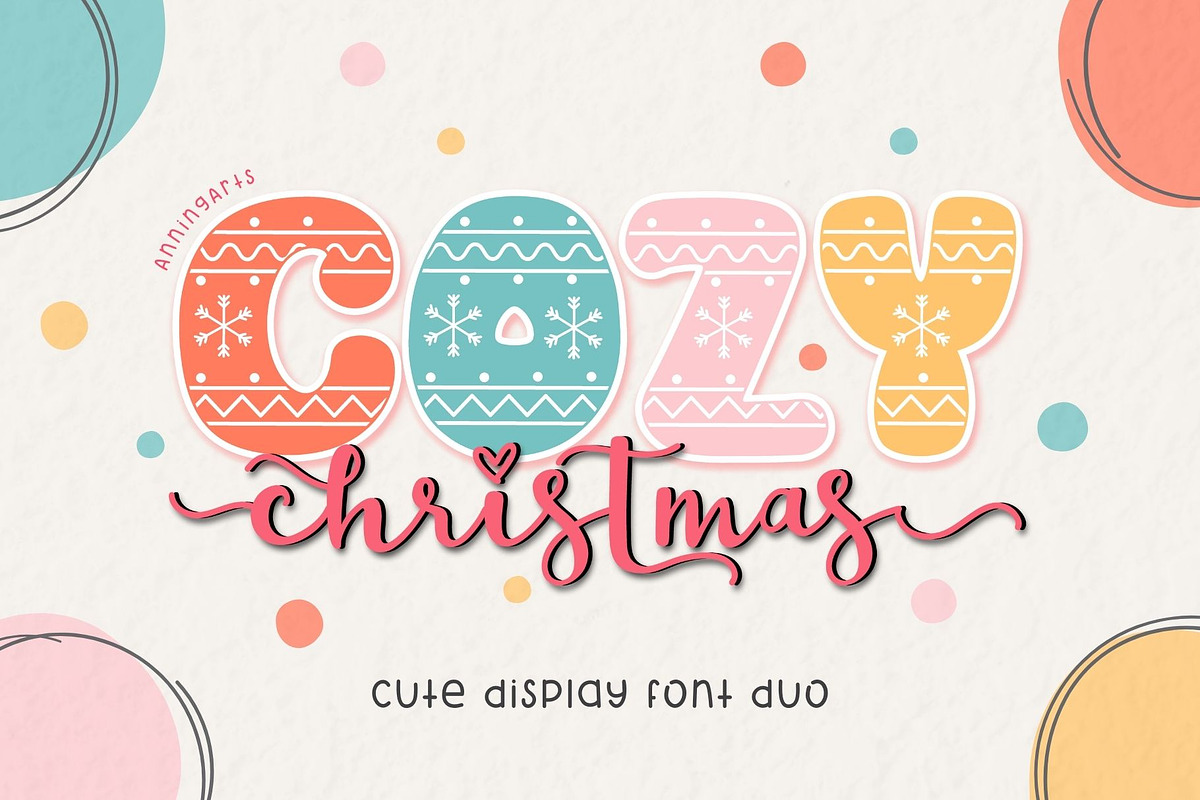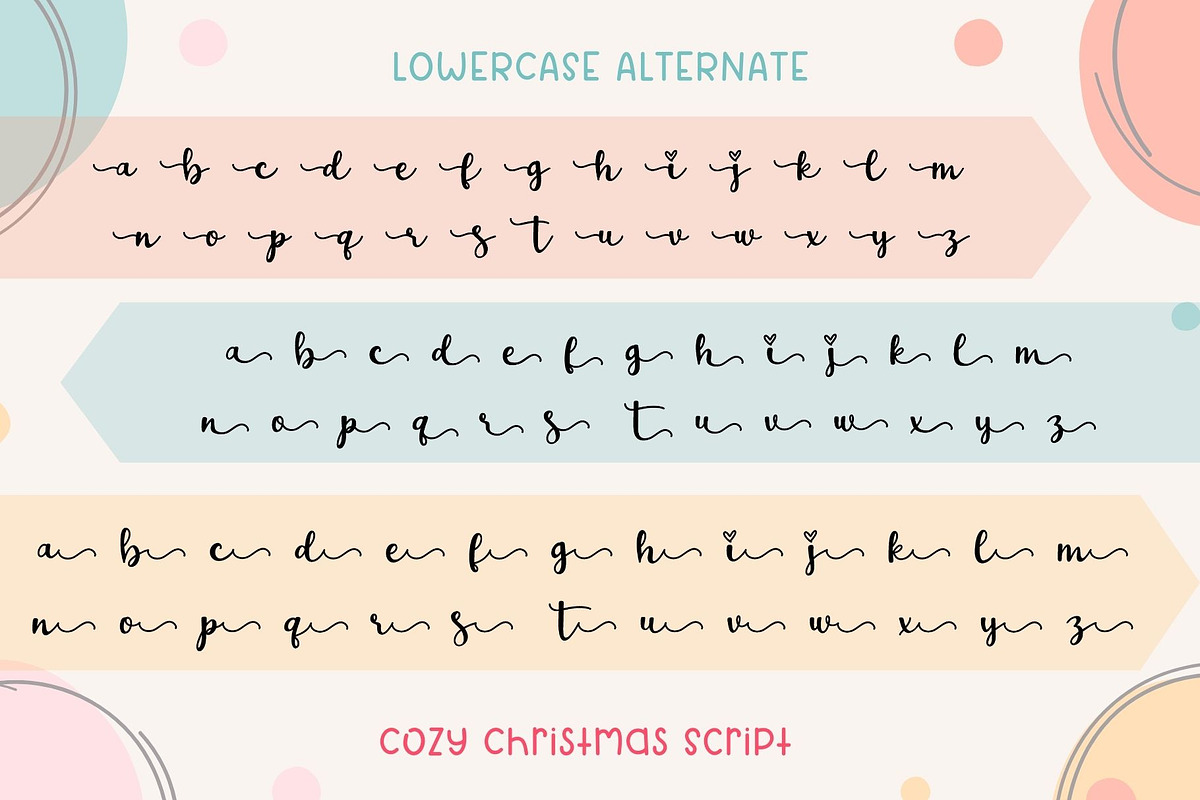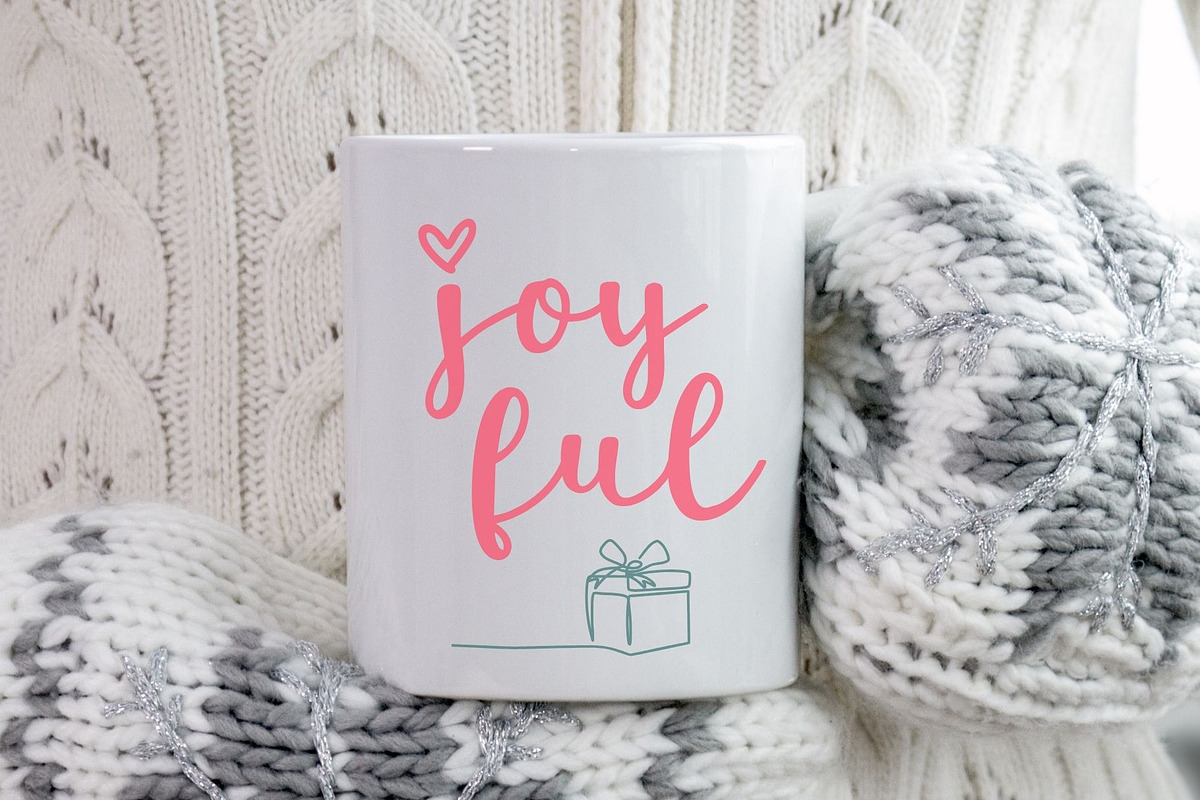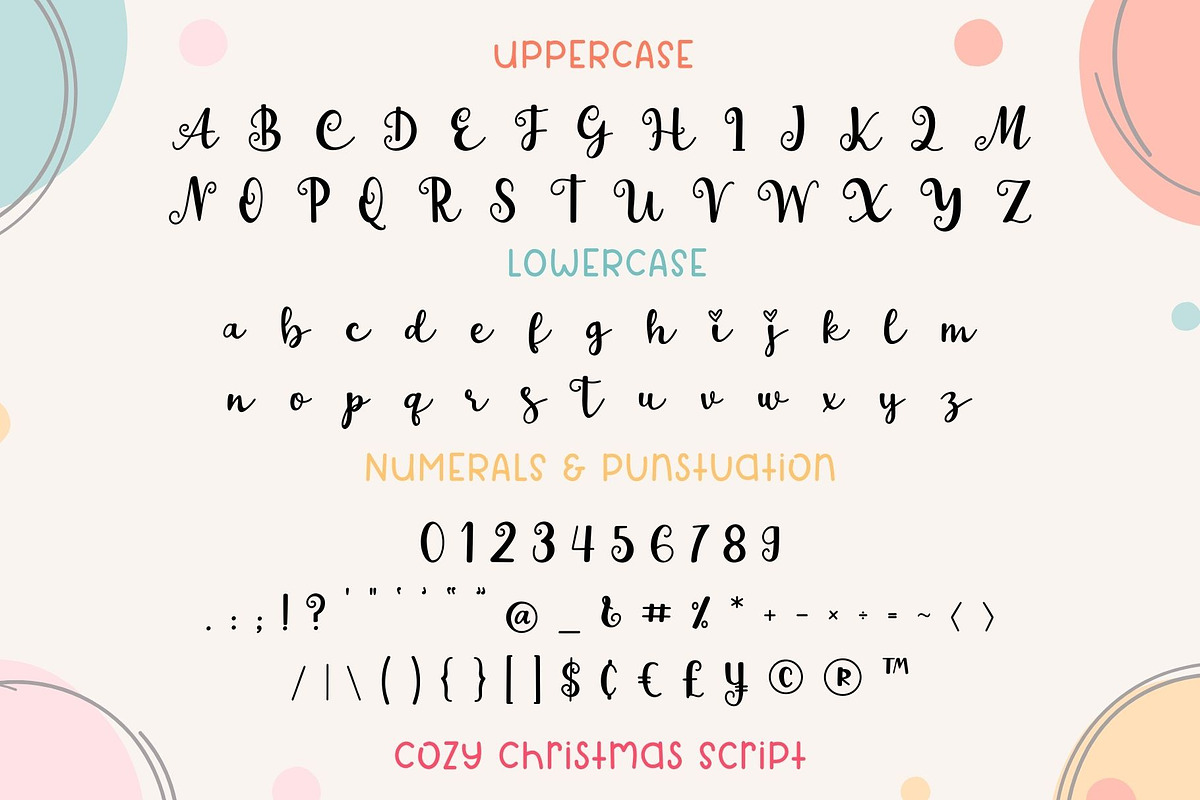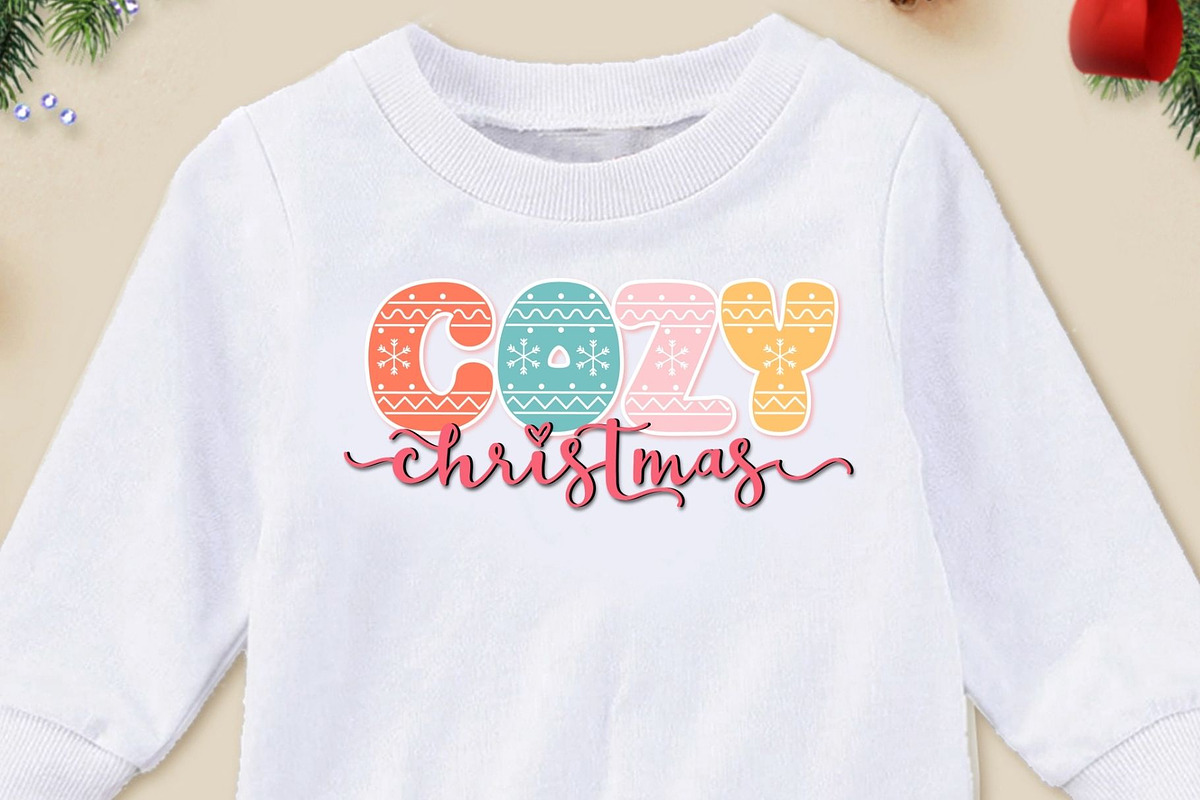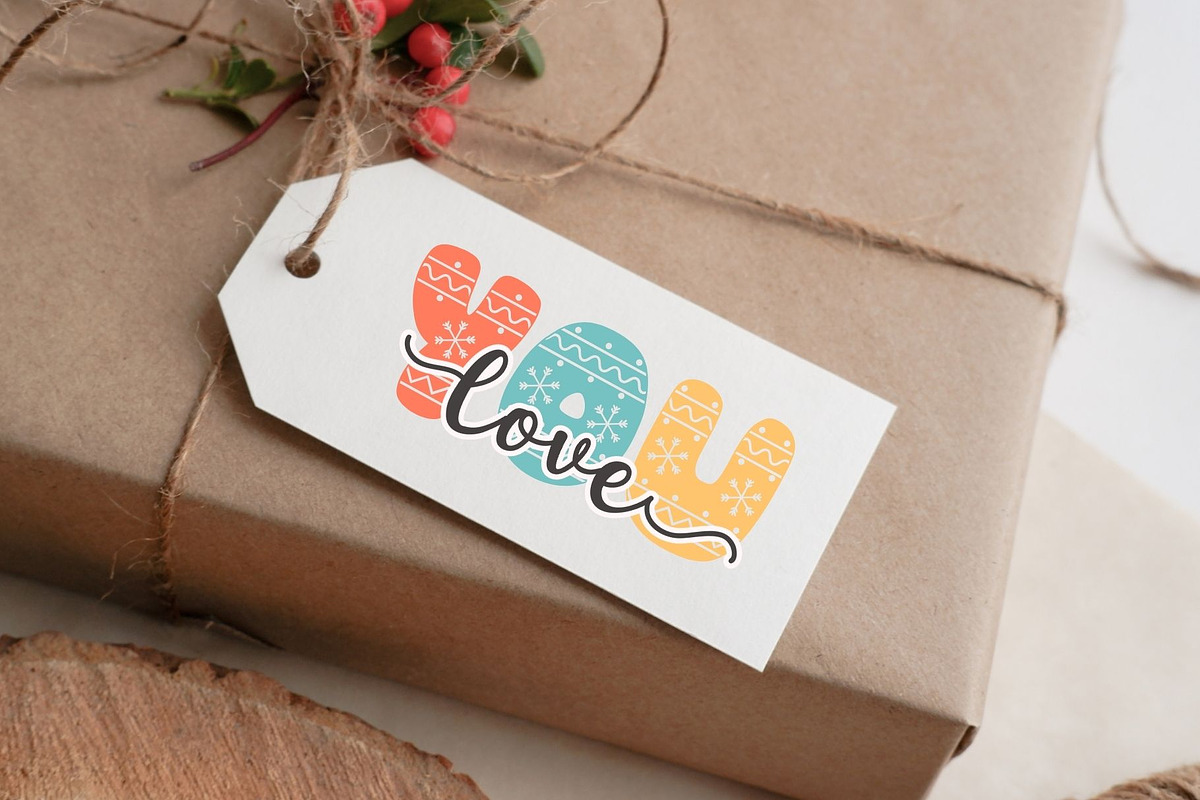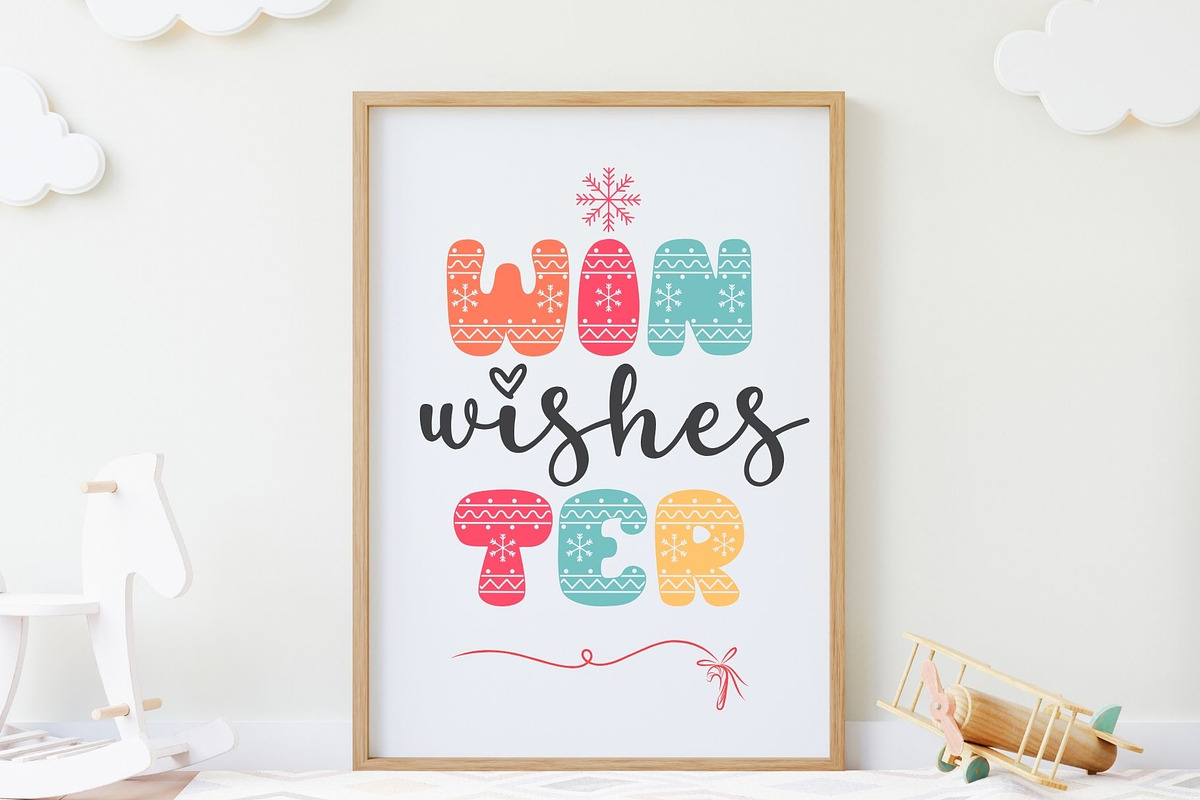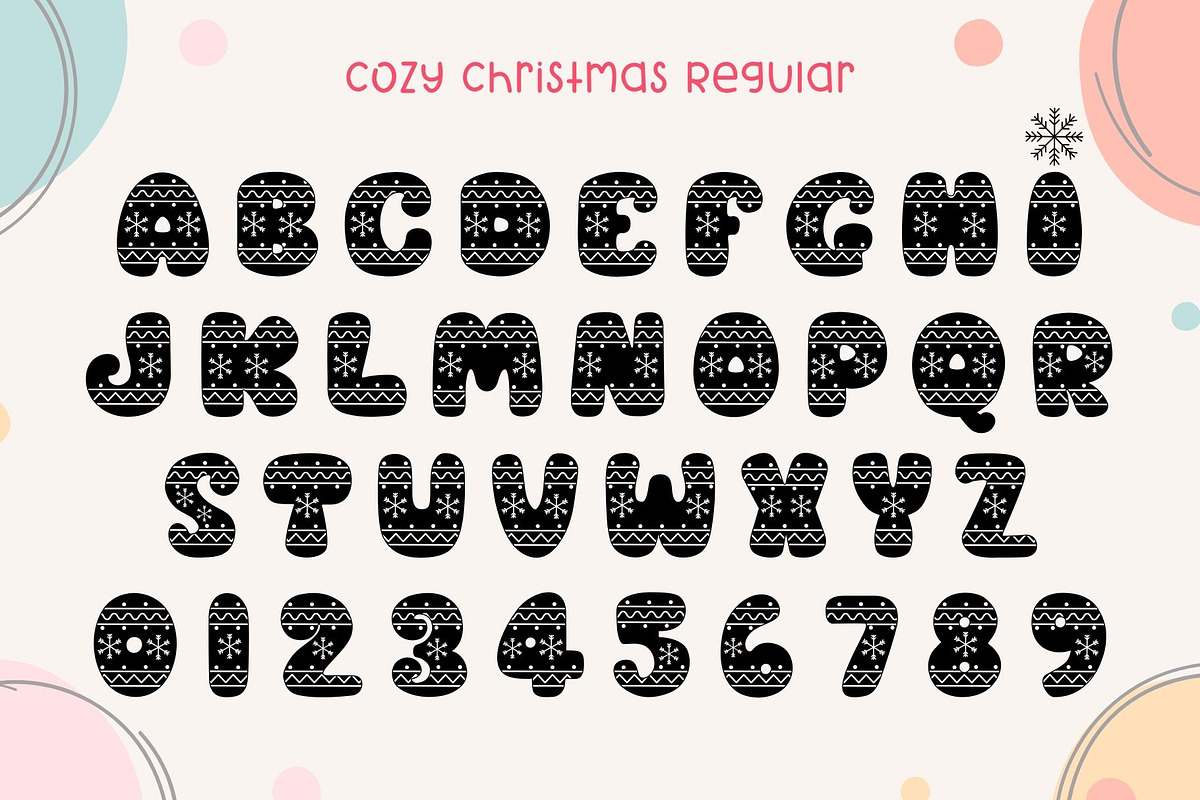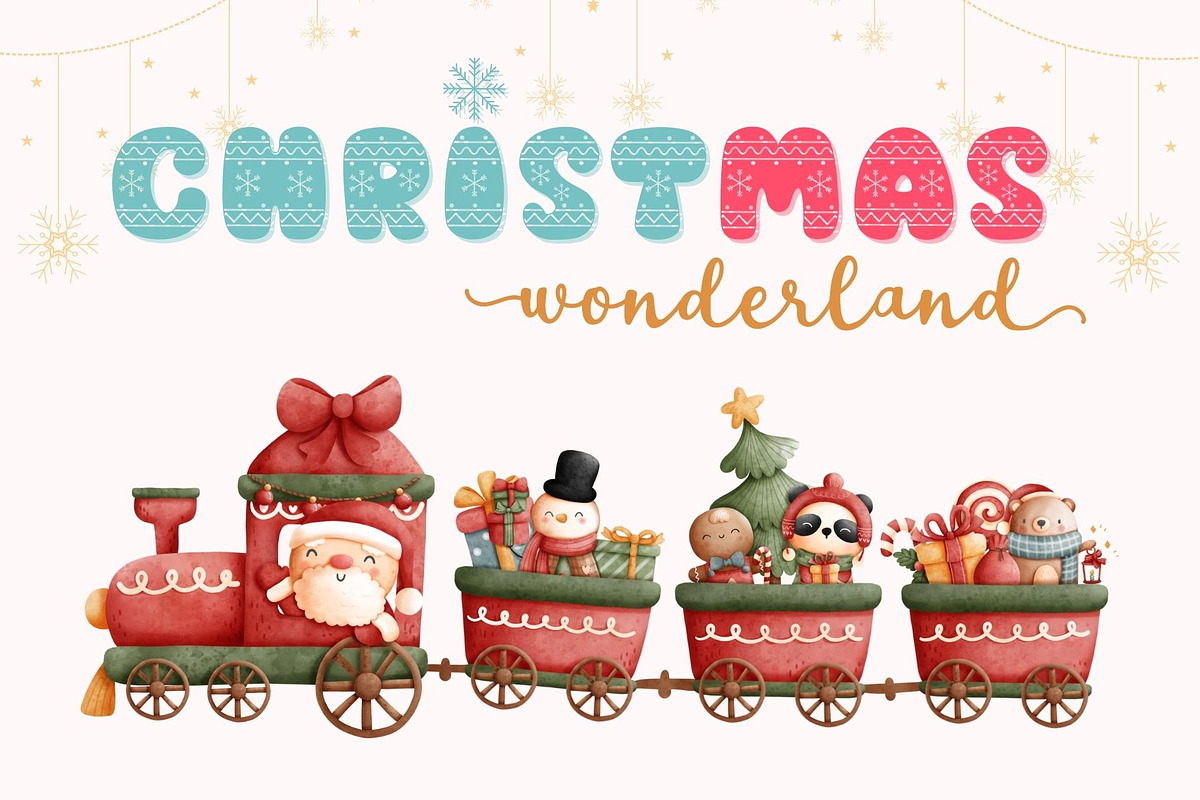
Cozy Christmas Font Duo
"Cozy Christmas Font Duo" a charming and festive font duo that is perfect for adding warmth and holiday cheer to your designs. This font set combines a playful display style with a whimsical script, featuring Christmas-themed patterns such as snowflakes and zigzags within the bold, decorative letters. "Cozy Christmas" is ideal for greeting cards, holiday invitations, gift tags, seasonal branding, and more, bringing joy to any project.